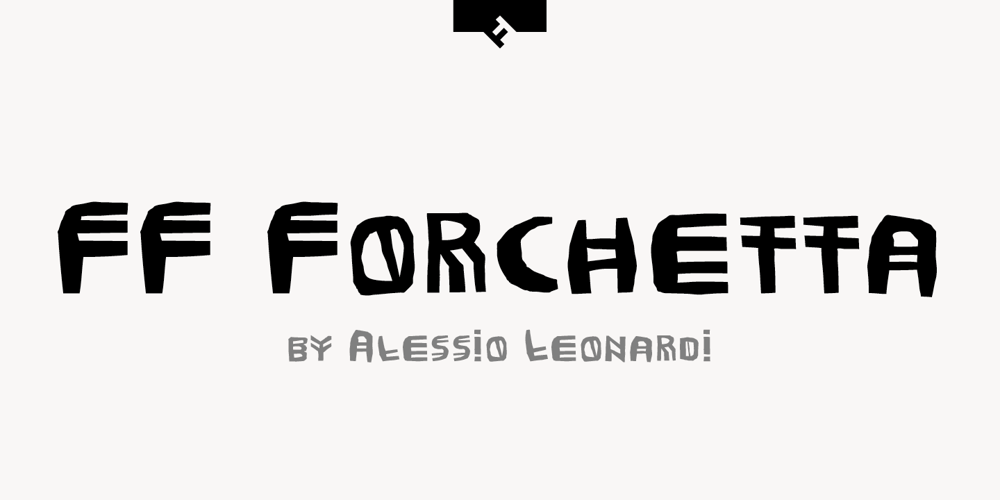
FF Forchetta Font Family was designed by Alessio Leonardi and published by FontFont. FF Forchetta contains 1 styles and family package options. Italian type designer Alessio Leonardi created this display FontFont in 1994. The font is ideally suited for festive occasions, music and nightlife as well as software and gaming. FF Forchetta provides advanced typographical support with features such as ligatures and case-sensitive forms. It comes with proportional lining figures.